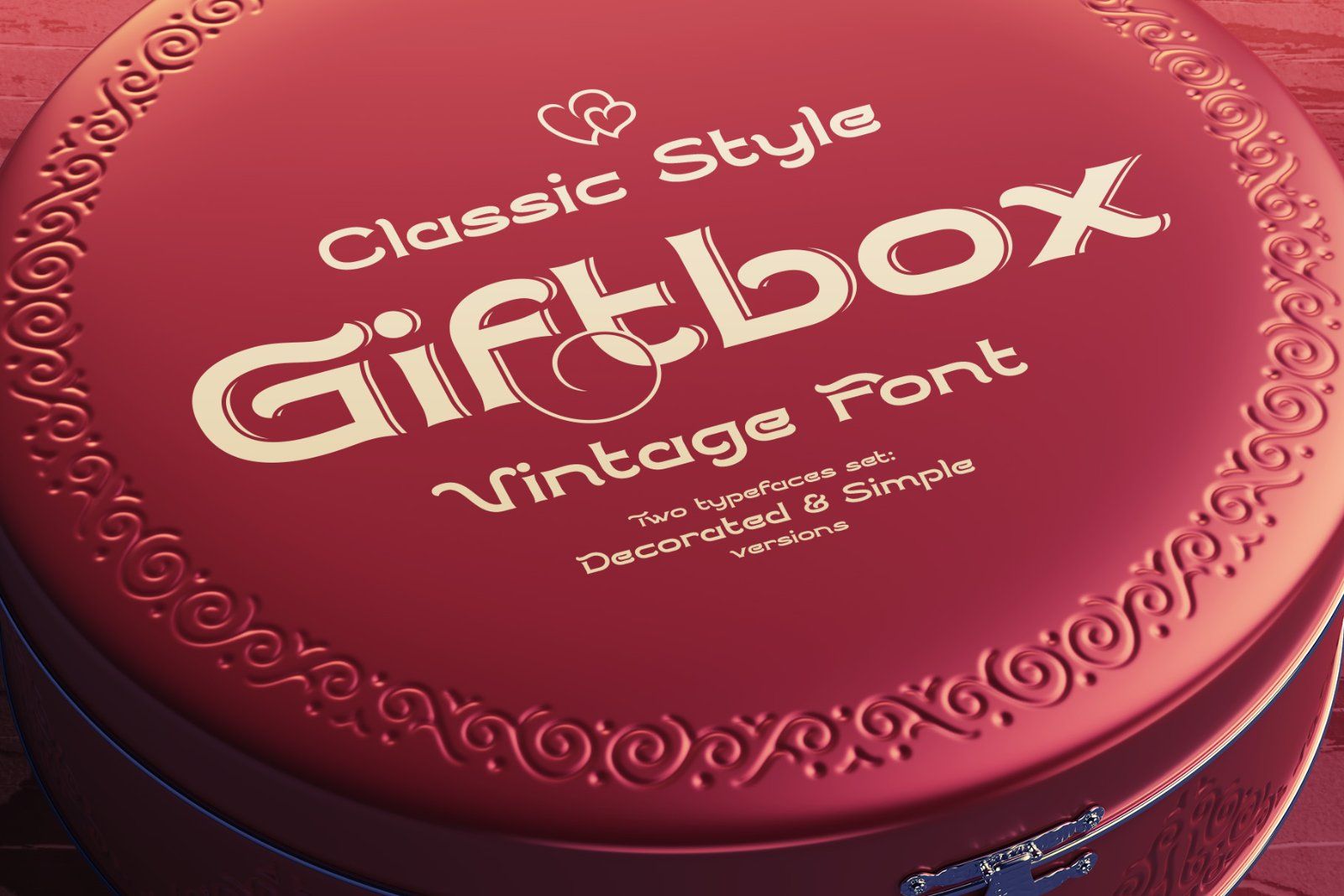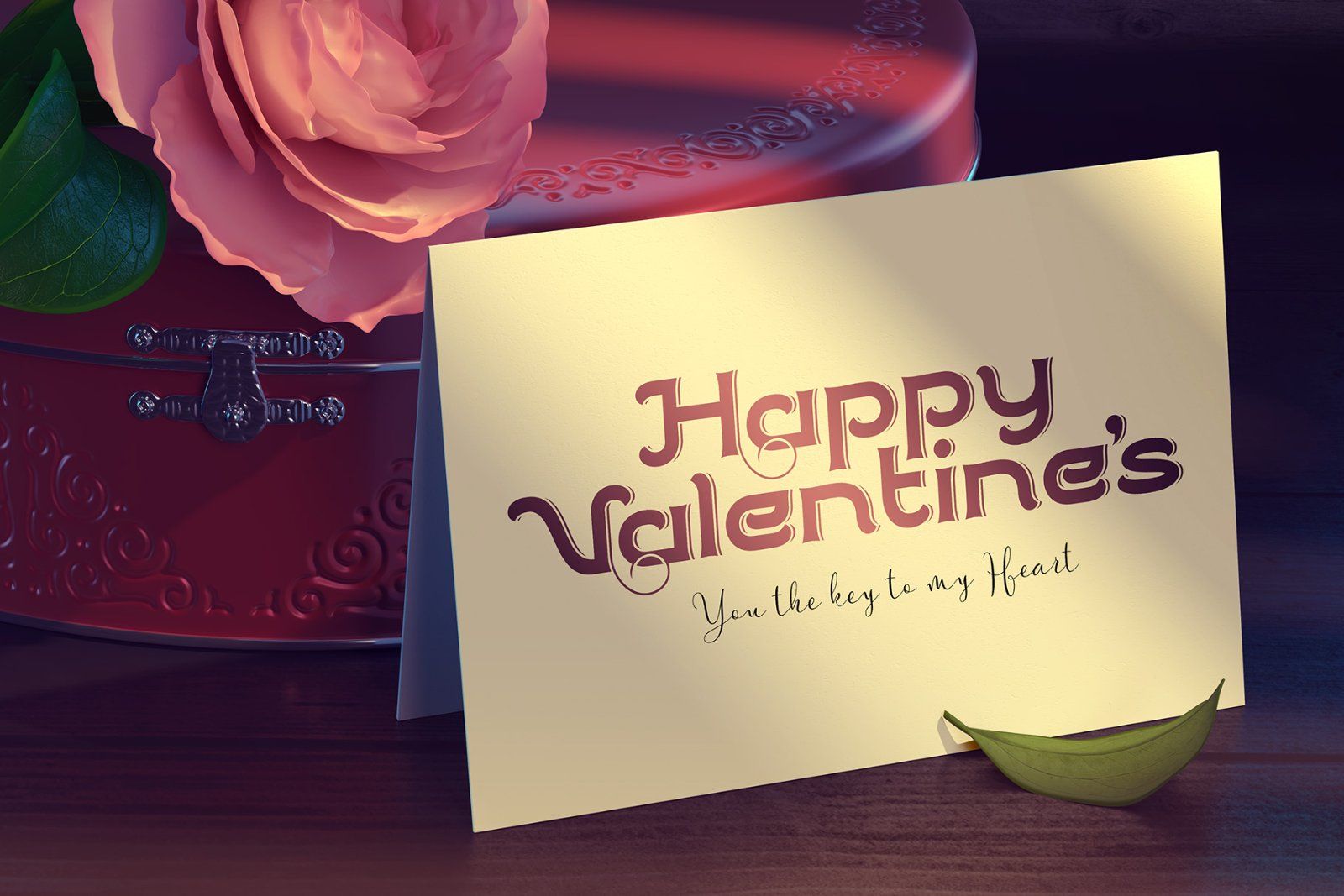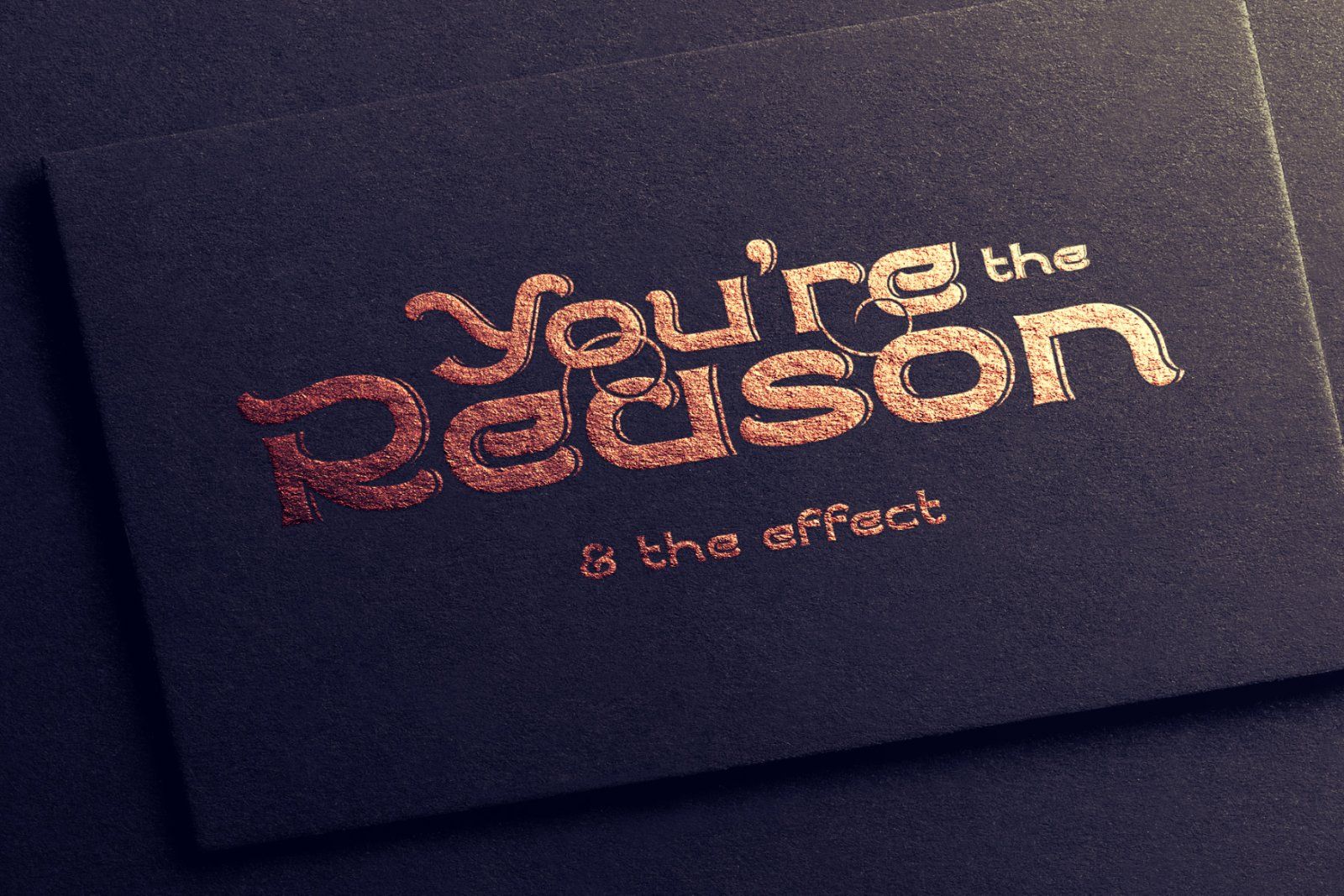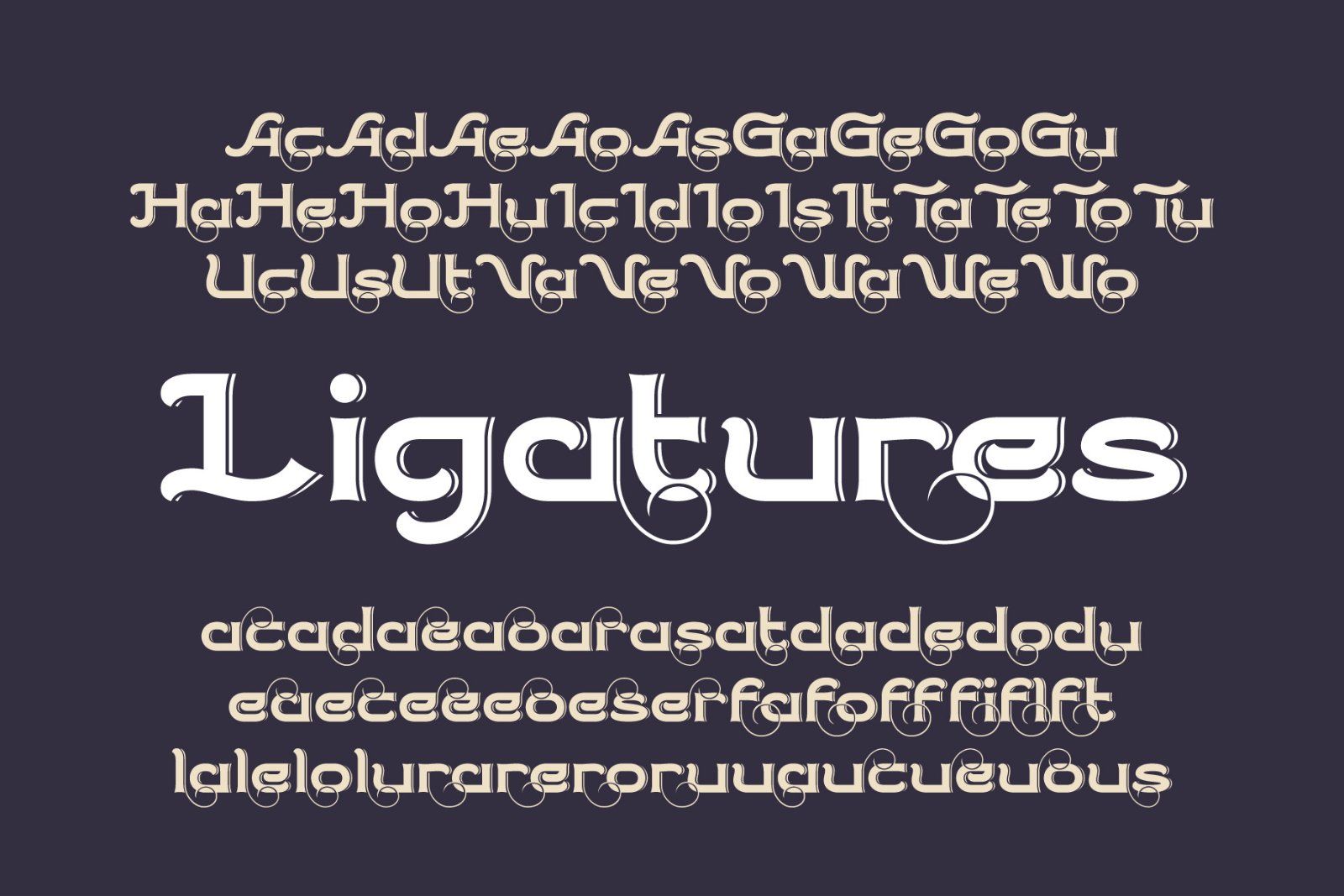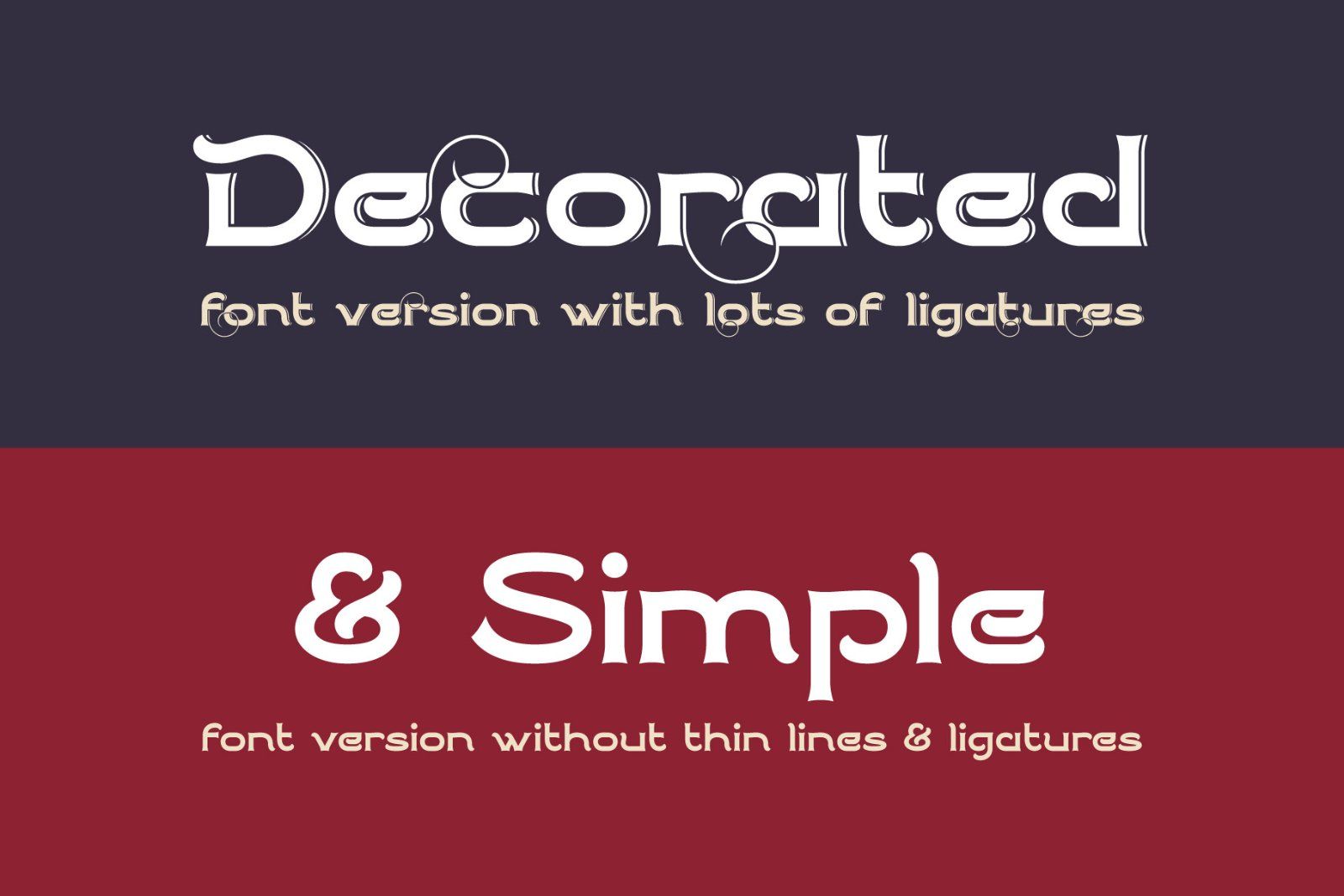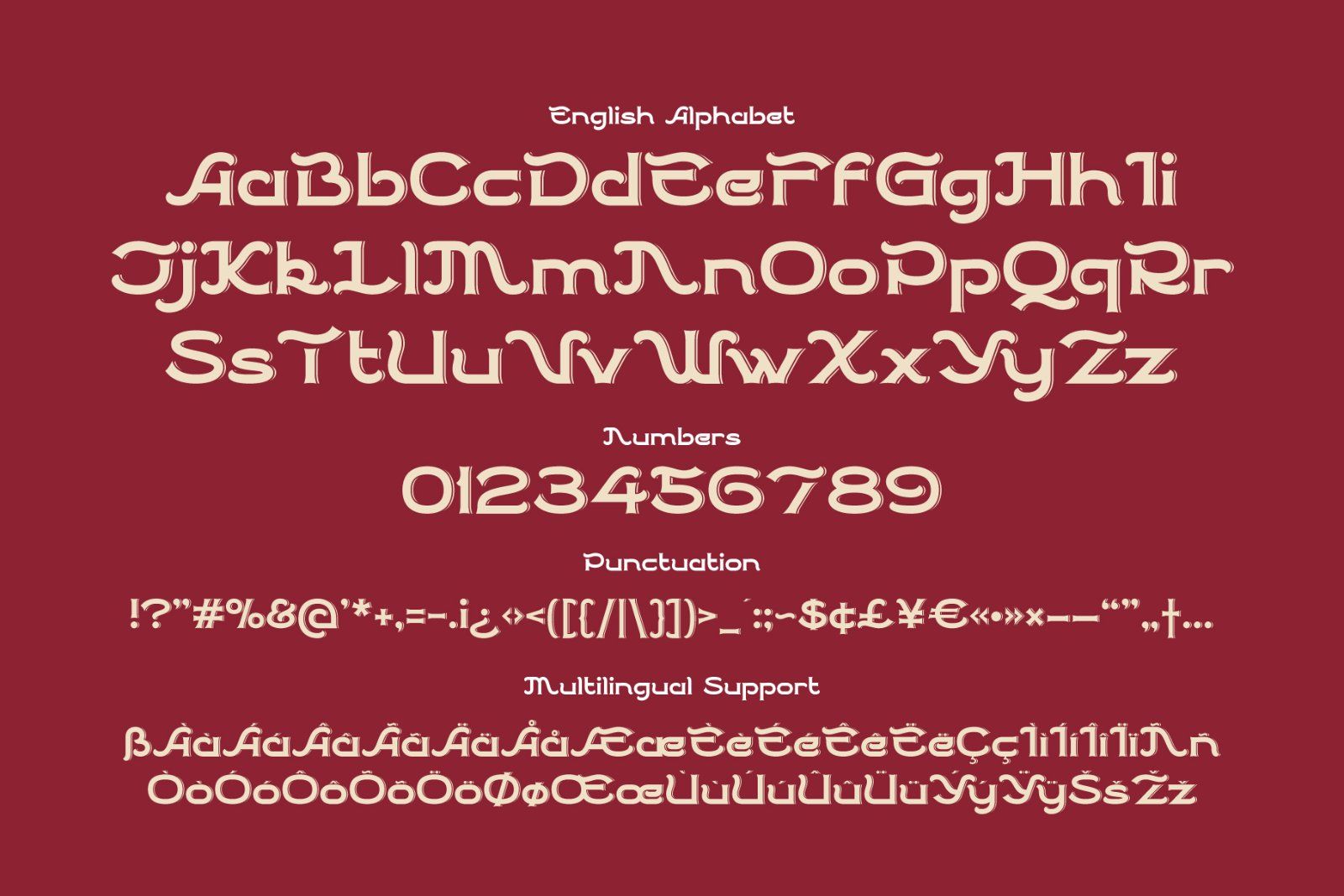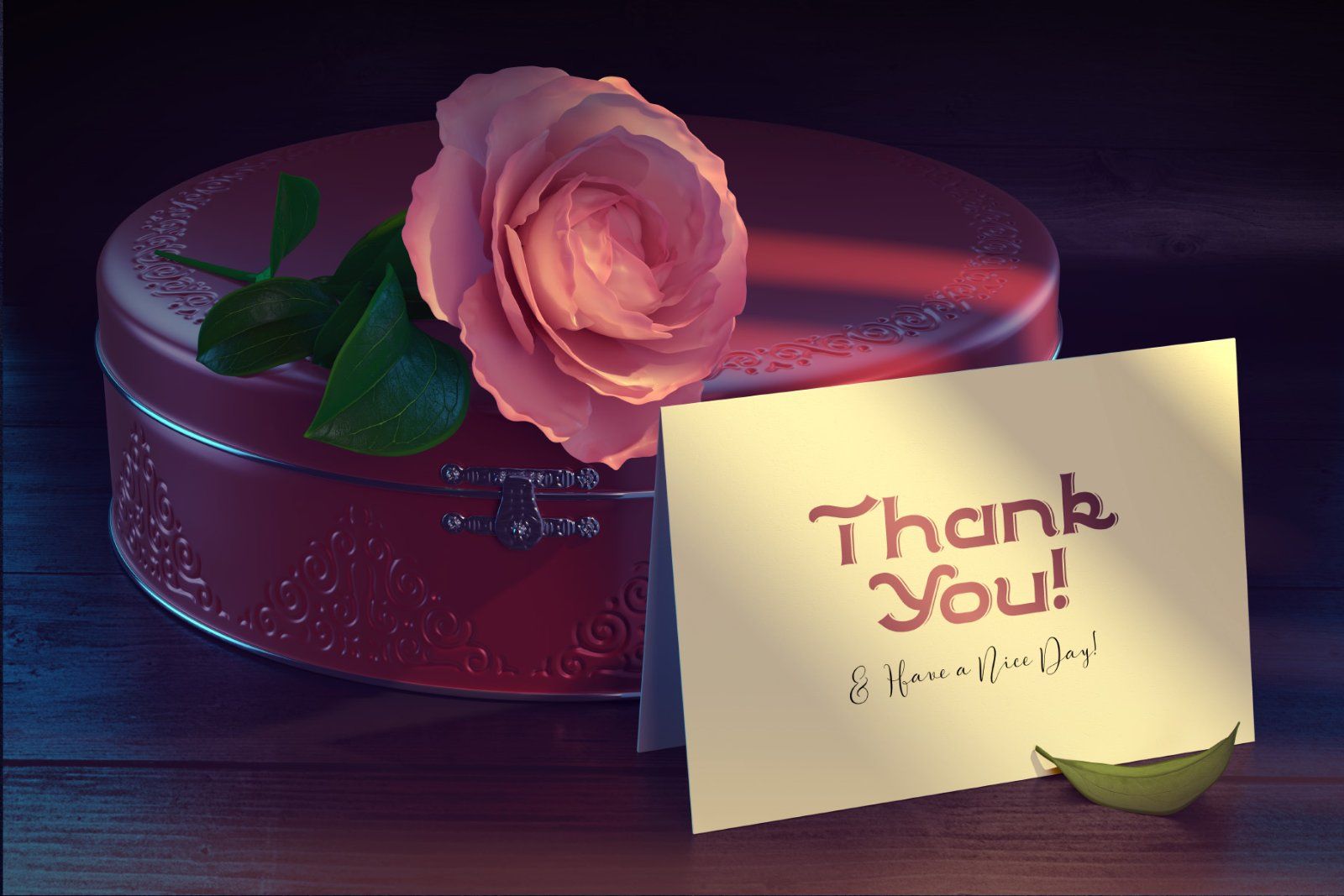
Introducing a vintage font Giftbox. It's a classic style font with thin lines decoration. Giftbox font set includes a main font file with lots of ligatures and a simple one which will be more useful in a small size. Giftbox font has a west European multilingual support (please check out a screenshot with all characters).